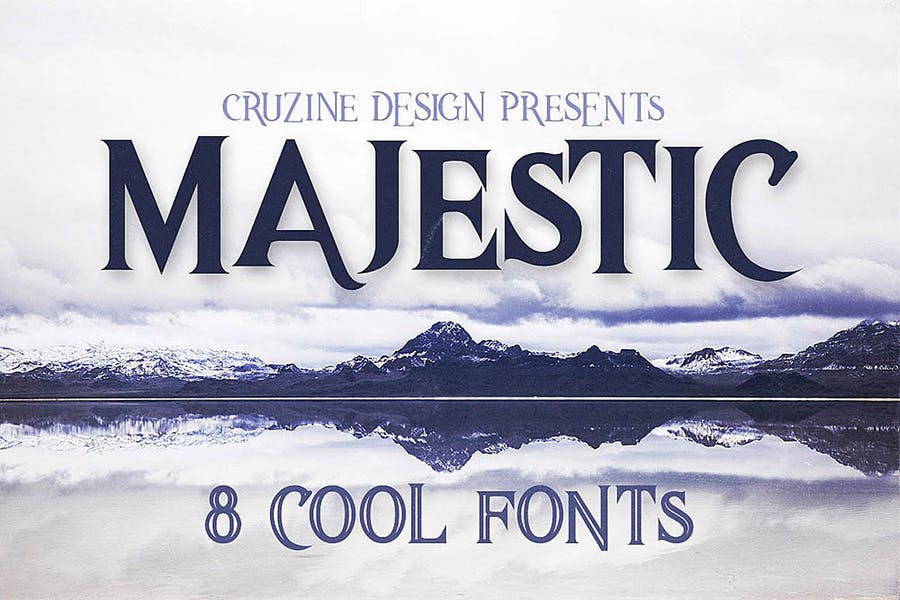
Majestic Typeface
Majestic Typeface is perfect for luxury brand identities, royal wedding invitations, prestigious award ceremonies, elegant hotel communications, high-end jewelry packaging, exclusive wine collections, sophisticated corporate presentations, regal event materials, premium fashion labels, and distinguished institutional branding.
Majestic Typeface creates excitement because it embodies the grandeur and sovereign elegance of royal magnificence with its commanding letterforms and aristocratic character design. The font's stately proportions and regal styling instantly convey authority and supreme sophistication, making any brand appear prestigious and majestically distinguished. Its carefully crafted imperial details and noble presence create an immediate sense of grandeur that captivates audiences seeking the ultimate in luxury experiences, royal treatment, and products that celebrate the magnificent power of true elegance and sovereign excellence.
The Majestic Typeface family includes multiple weights and styles: Regular, Bold, Light, Medium, Black, Italic, Condensed, Extended, Royal, and Imperial versions. Each variant maintains the font's signature majestic character while offering different levels of grandeur and regal styling suitable for various luxury and prestigious applications.
This extraordinary typeface represents the pinnacle of royal typography for brands demanding the ultimate expression of sovereign elegance and imperial sophistication. Majestic Typeface Free Download provides luxury enterprises and prestigious institutions with access to premium regal typography that embodies the highest standards of aristocratic design and royal magnificence. The font's majestic presence and sovereign quality make it ideal for organizations requiring typography that communicates ultimate prestige and inspires reverence for exceptional excellence across the most distinguished markets. Whether you're developing brand identities for crown jewel enterprises, creating materials for state occasions, designing communications for royal institutions, or producing marketing content for imperial luxury brands, this font delivers the sovereign presence that resonates with audiences seeking the absolute pinnacle of luxury, prestige, and regal excellence. Its exceptional performance in the most prestigious applications ensures maximum impact across palace communications, royal ceremonies, and imperial marketing platforms while maintaining the dignity and authority of genuine royal typography. The font excels in applications requiring ultimate prestige and sovereign recognition. Royal brand professionals appreciate its ability to convey imperial authority while maintaining the refinement essential for the most distinguished communications and ceremonial applications. The comprehensive character set includes royal symbols and extensive international language support, making it suitable for global luxury empires and international royal institutions seeking to communicate sovereign excellence, imperial magnificence, and majestic authority to the most discerning worldwide audiences who demand nothing less than absolute perfection, imperial quality, and the supreme elegance that defines true royal magnificence and sovereign luxury in its most exalted and distinguished forms.